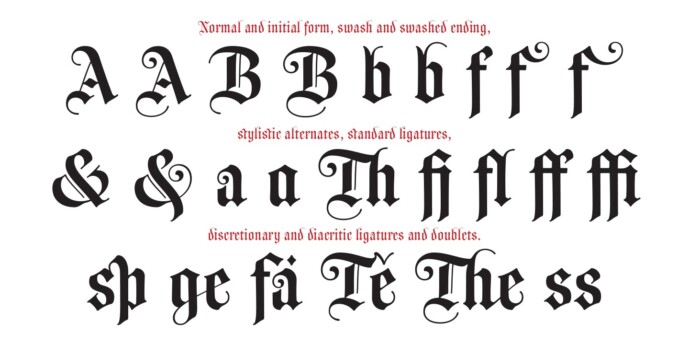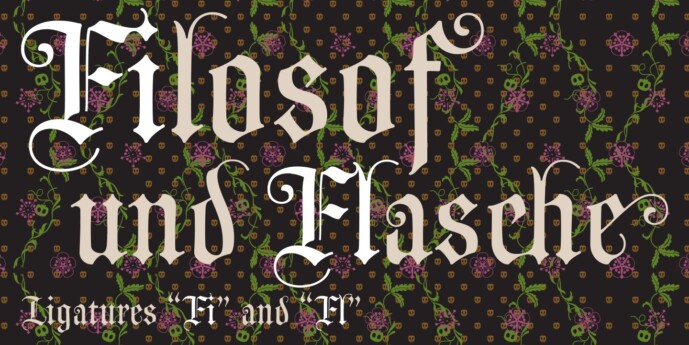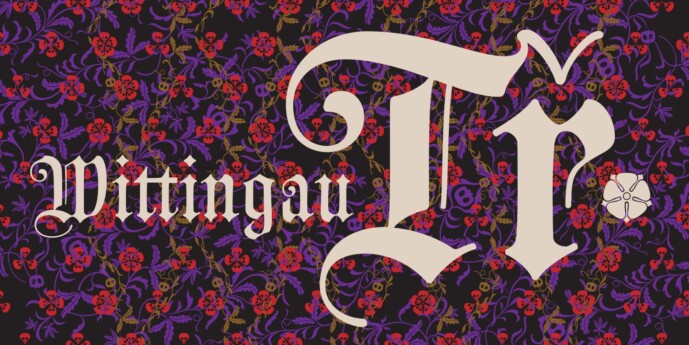
Wittingau Font
Wittingau Font is the original German expression for “T?ebo?”, which is a beautiful town near my studio in South Bohemia. I love it for its calm and inspiring atmosphere and rich cultural past dating from the 12th century. The present typeface family is released as homage to T?ebo? in the style of its greatest glory – Gothic Revival with classicistic decorativeness. Wittingau is excellent for music covers, book and catalogue jackets, invitations and posters. Contains many ornaments for creating decorative wallpapers.